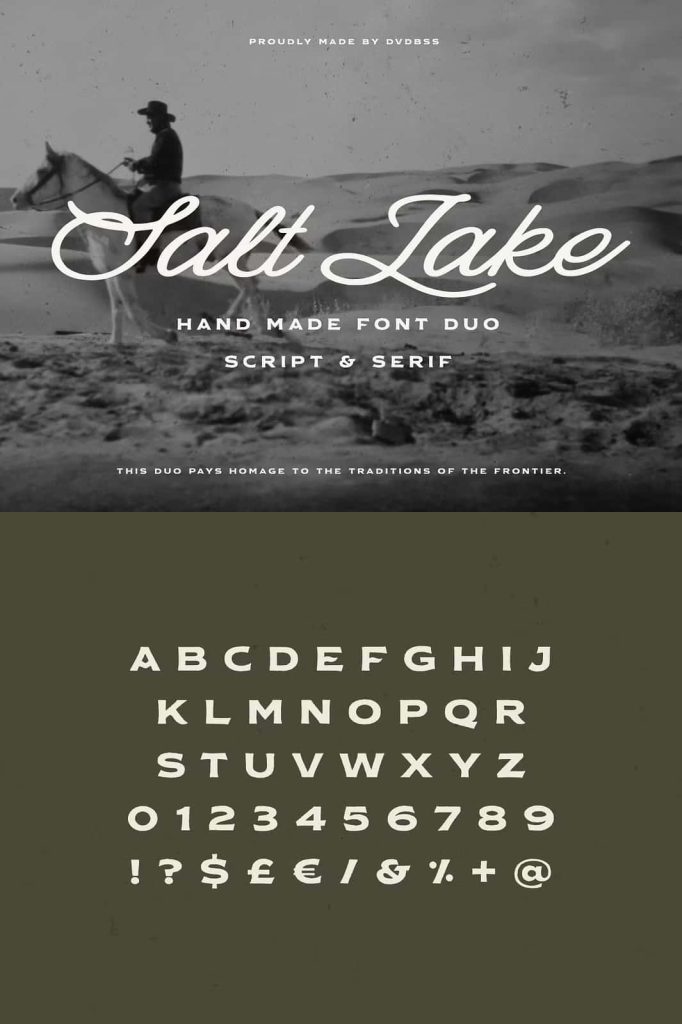
Salt Lake Rustic Font Duo
Salt Lake is a distinctive font duo that blends rustic charm with enduring style, offering designers a powerful combination of a handmade script and a bold serif typeface. This pairing creates a balanced and versatile typography system that captures attention while maintaining authenticity. Inspired by the rugged landscapes and cultural richness of the American Southwest, Salt Lake brings warmth, character, and storytelling into every design project.
A Unique Blend of Script and Serif
Salt Lake combines two complementary styles to give you maximum creative flexibility. The handmade script introduces a natural, organic flow that feels personal and expressive. Its fluid strokes mimic the movement of hand lettering, adding warmth and personality to your designs. This script style works perfectly for signatures, accents, and elements that require a human touch.
The bold serif, on the other hand, provides structure and strength. Its solid forms and confident presence create a strong visual foundation that anchors your design. When paired with the script, it produces a harmonious contrast that enhances readability while adding depth and visual interest.
Inspired by the American Southwest
The design of Salt Lake draws heavily from the American Southwest, a region known for its rugged landscapes, earthy textures, and rich cultural heritage. This influence appears in the font’s bold shapes and organic details, which reflect the natural beauty and raw character of the environment.
The serif captures the strength and durability of desert terrain, while the script echoes the fluid lines of wind-swept landscapes and handcrafted artistry. Together, they create a visual language that feels grounded, authentic, and deeply connected to tradition.
Perfect for Logo Design
Salt Lake excels in logo design, where strong identity and visual impact are essential. The combination of script and serif allows designers to create logos that feel both professional and approachable. Use the serif to establish a bold brand name, then enhance it with the script for a personalized touch.
This approach helps you build logos that stand out while remaining versatile across different applications. Whether you design for small businesses, lifestyle brands, or creative ventures, Salt Lake provides the tools to craft memorable identities.
Ideal for Apparel and Merchandise
The rustic and bold nature of Salt Lake makes it an excellent choice for apparel branding and merchandise design. Its strong letterforms translate well onto physical products such as t-shirts, hats, and packaging. The script adds flair and individuality, while the serif ensures clarity and impact.
Designers can use this duo to create graphics that feel authentic and timeless. The font’s connection to Southwestern aesthetics also makes it particularly appealing for outdoor, adventure, and lifestyle brands.
Versatile Across Creative Projects
Salt Lake adapts easily to a wide range of design applications. It works well in branding, packaging, social media graphics, posters, and editorial layouts. The combination of styles allows you to switch between bold statements and subtle accents, depending on your design needs.
You can use the serif for headlines and key messaging, while the script enhances decorative elements and secondary text. This flexibility helps you maintain a cohesive design while adding variation and interest.
Create Authentic and Memorable Designs
Salt Lake empowers designers to create work that feels genuine and engaging. Its rustic charm and strong visual presence help convey stories and emotions that resonate with audiences. By combining traditional influences with modern usability, this font duo supports both creative exploration and professional results.
Whether you aim to evoke nostalgia, highlight craftsmanship, or build a bold brand identity, Salt Lake provides the tools to achieve your vision. Its unique blend of script and serif transforms ordinary typography into a compelling visual experience.
Bring Character and Strength to Your Typography
Salt Lake stands as a reliable choice for designers who want to add character, depth, and authenticity to their projects. Its thoughtful design and versatile nature make it suitable for both personal and commercial use. By integrating this font duo into your workflow, you can elevate your designs and create visuals that leave a lasting impression.